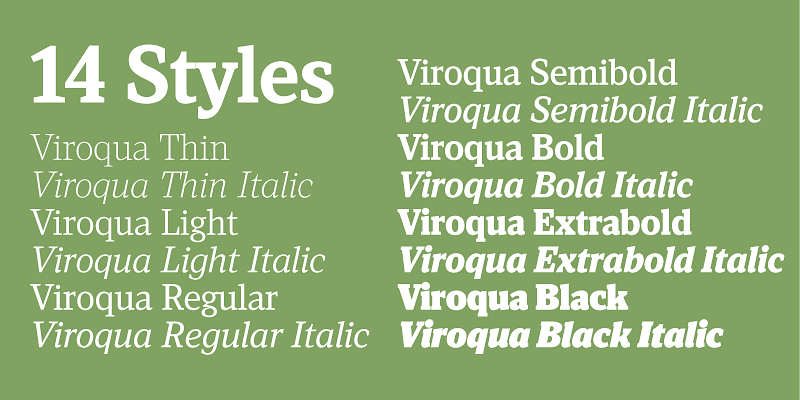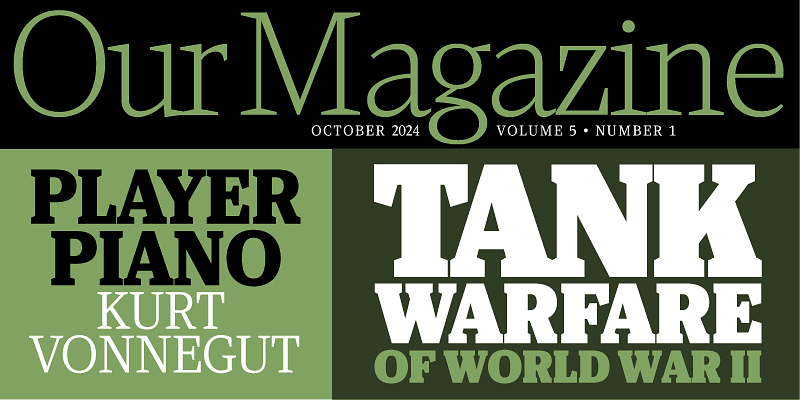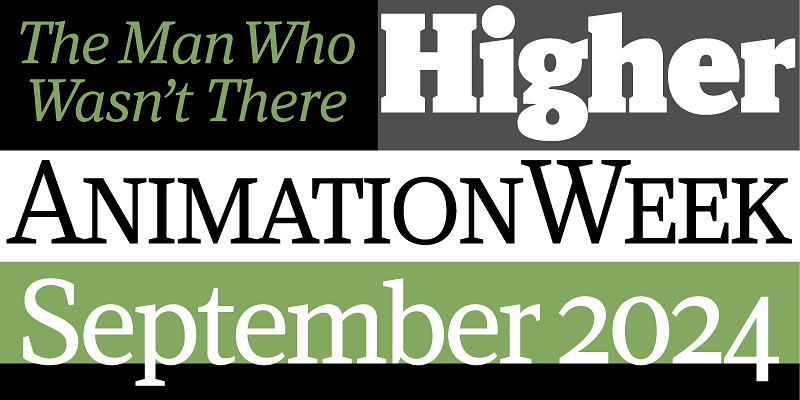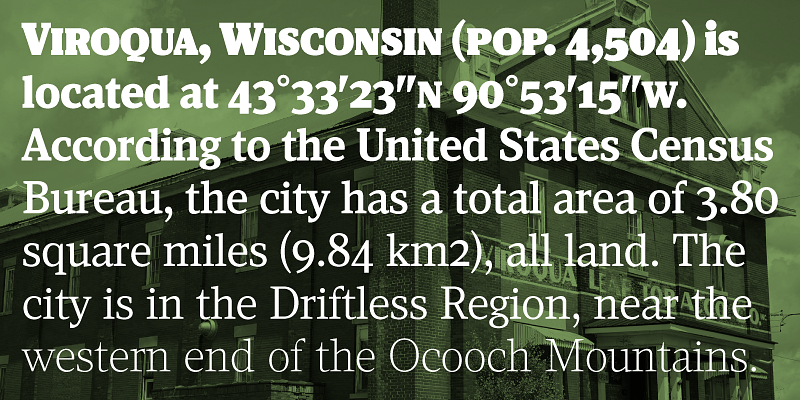
Viroqua is a redesign of Kandal (1994), one of my first typefaces, after 30 years more practice at type design. It’s a hybrid, combining old style details with modern proportions. It has fairly low contrast, with wedge-shaped slab serifs. Viroqua is very comfortable to read in text, and the boldest weights provide a lot of impact at display sizes. Viroqua features small caps, old style and lining figures (both proportional and tabular), superscript and subscript figures, fractions, and dingbats.